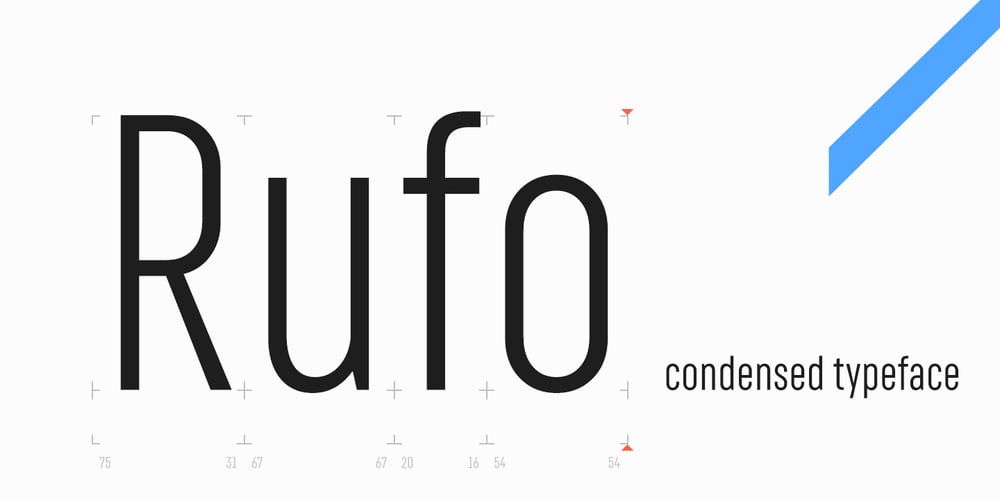
RF Rufo Font Family was designed by Misha Panfilov and published by Russian Fonts. RF Rufo contains 12 styles and family package options. Rufo — condensed geometric sans serif with the closed forms. Contains 12 fonts. 6 regular and 6 italic. From thin to black. A rich palette gives full freedom for creativity and bright decisions. Extensive area of use. The versatility of the sans serif typeface covers various aspects of graphic design. Web, printed materials, clothing, logos, posters, labels and much more. Rufo is pragmatic typeface. Can save space and will accommodate a large amount of information in a limited space. The font was designed so that condensed letters remains readable even in small sizes. Opentype: alternate numbers, oldstyle numbers, arrows, fractions and automatic fractions, case sensitive forms, superscript and subscript, numerators and denominators. Support: cyrillic, cyrillic extended, latin, latin extended (Western European, Central European, South-East).